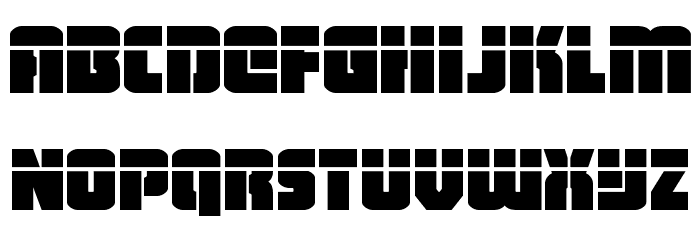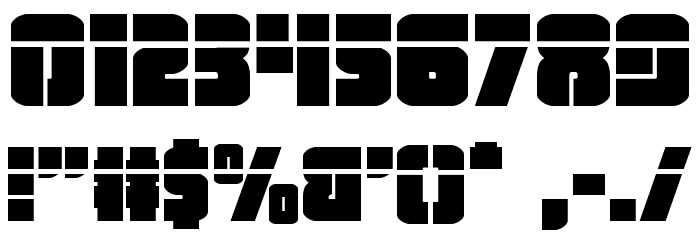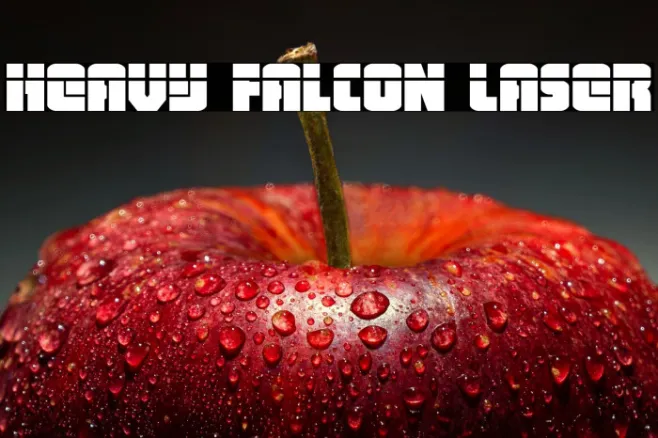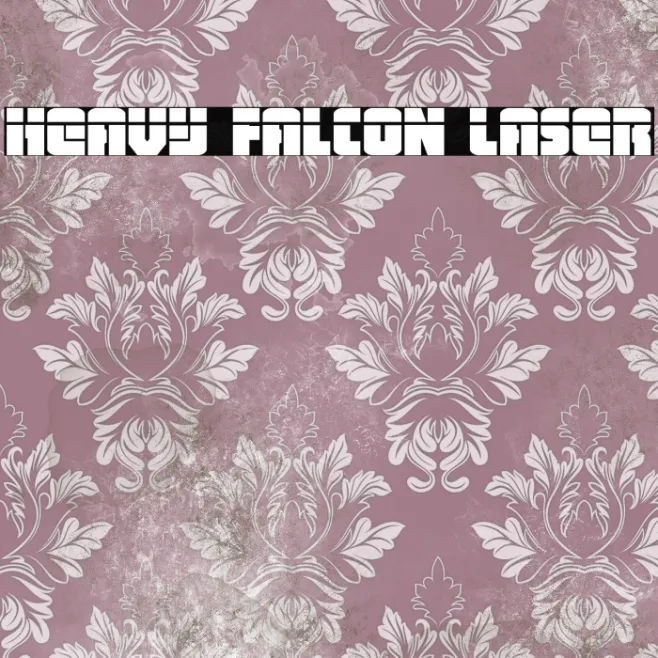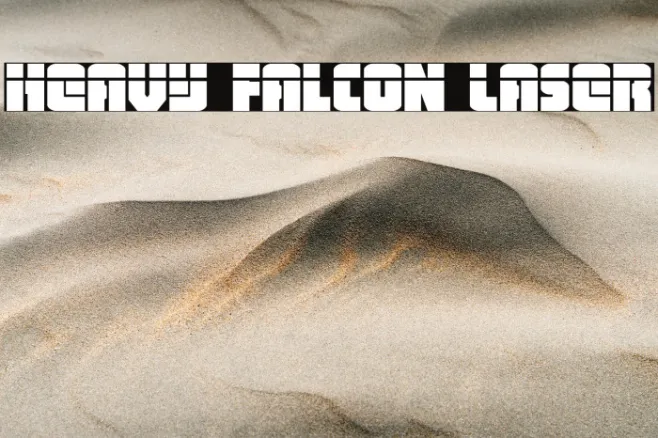
Heavy Falcon Laser Font
This font features a bold, geometric design with a futuristic aesthetic. The characters are constructed with thick, block-like shapes that convey a sense of strength and modernity. The uppercase and lowercase letters maintain a consistent width, creating a uniform appearance. Numbers and special characters follow the same design principles, ensuring a cohesive look across all elements. The font's sharp angles and straight lines give it a dynamic and impactful presence, making it suitable for attention-grabbing designs.
A bold, geometric font with a futuristic and modern aesthetic.
- Proposed Projects: Ideal for sci-fi themed posters, video game titles, branding for tech companies, and any project needing a strong, modern look.